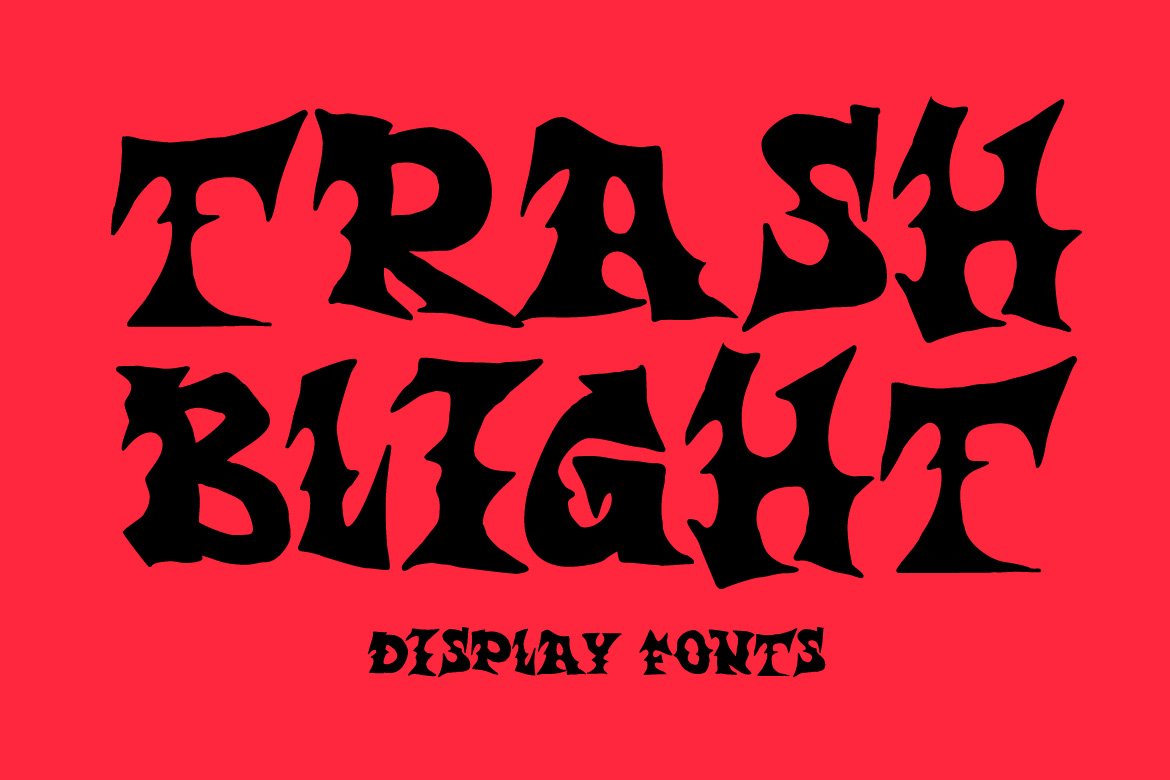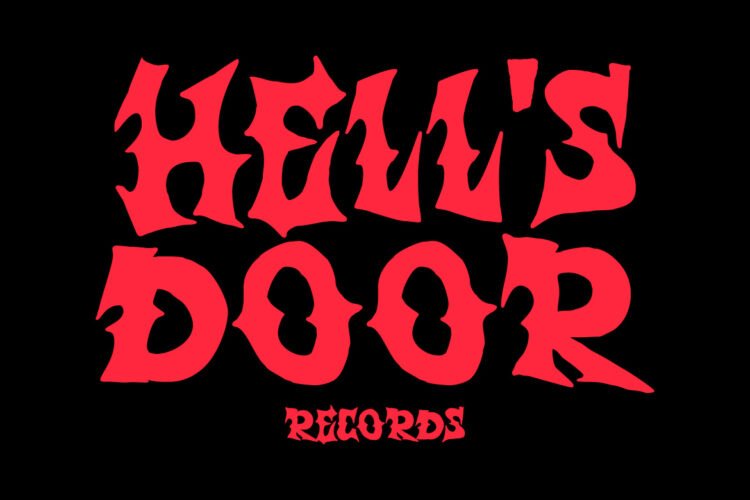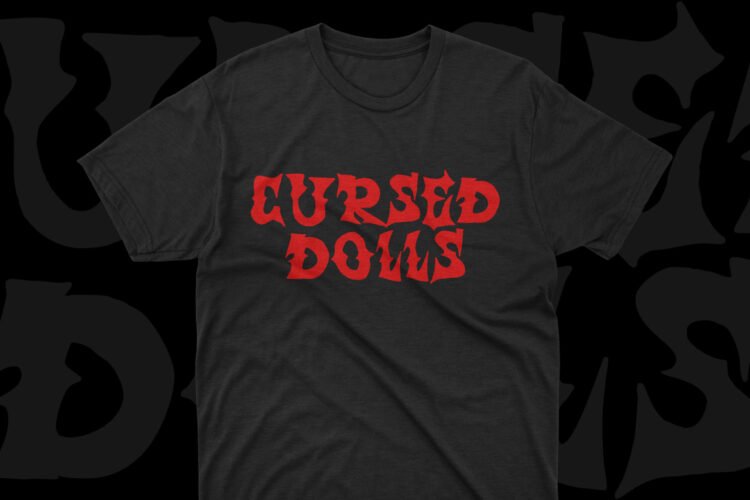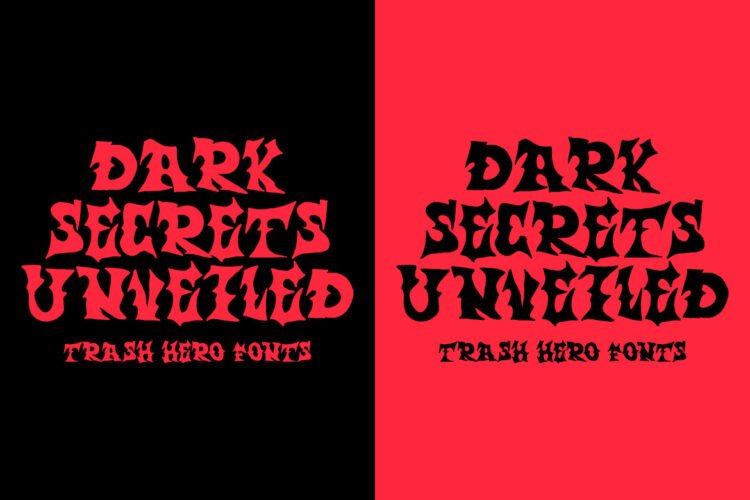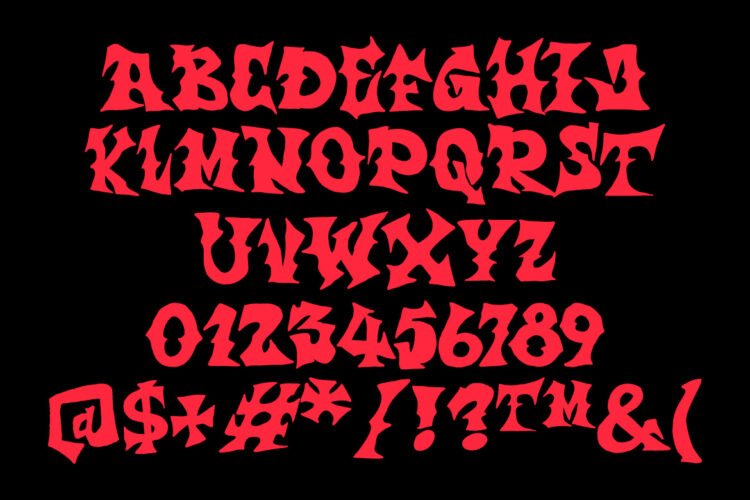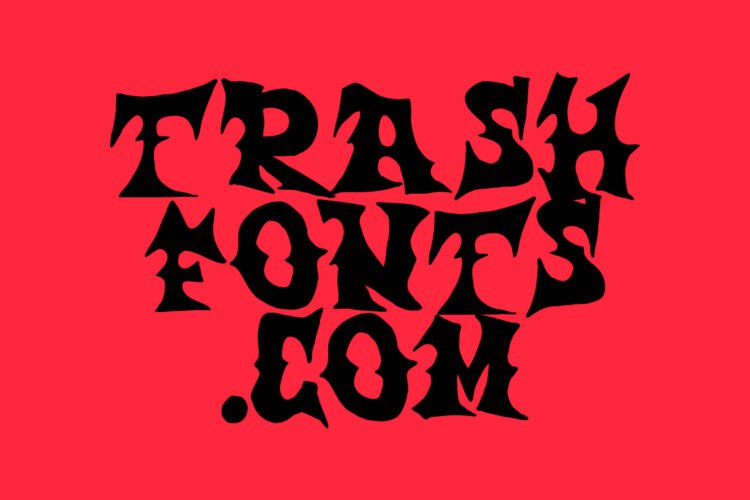
Trash Blight is a simple death metal display font featuring sharp, aggressive letterforms with a raw underground feel. Perfect for band logos, album covers, posters, merchandise, and dark-themed designs.
Trash Blight